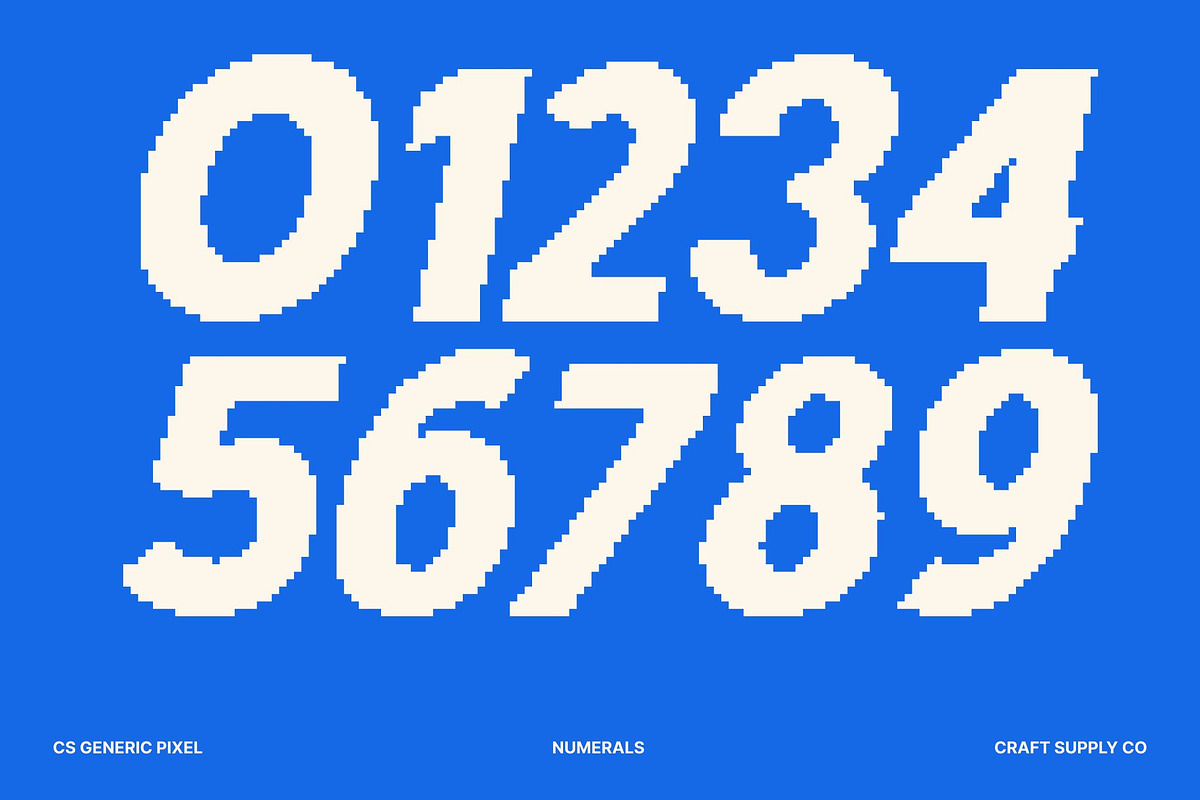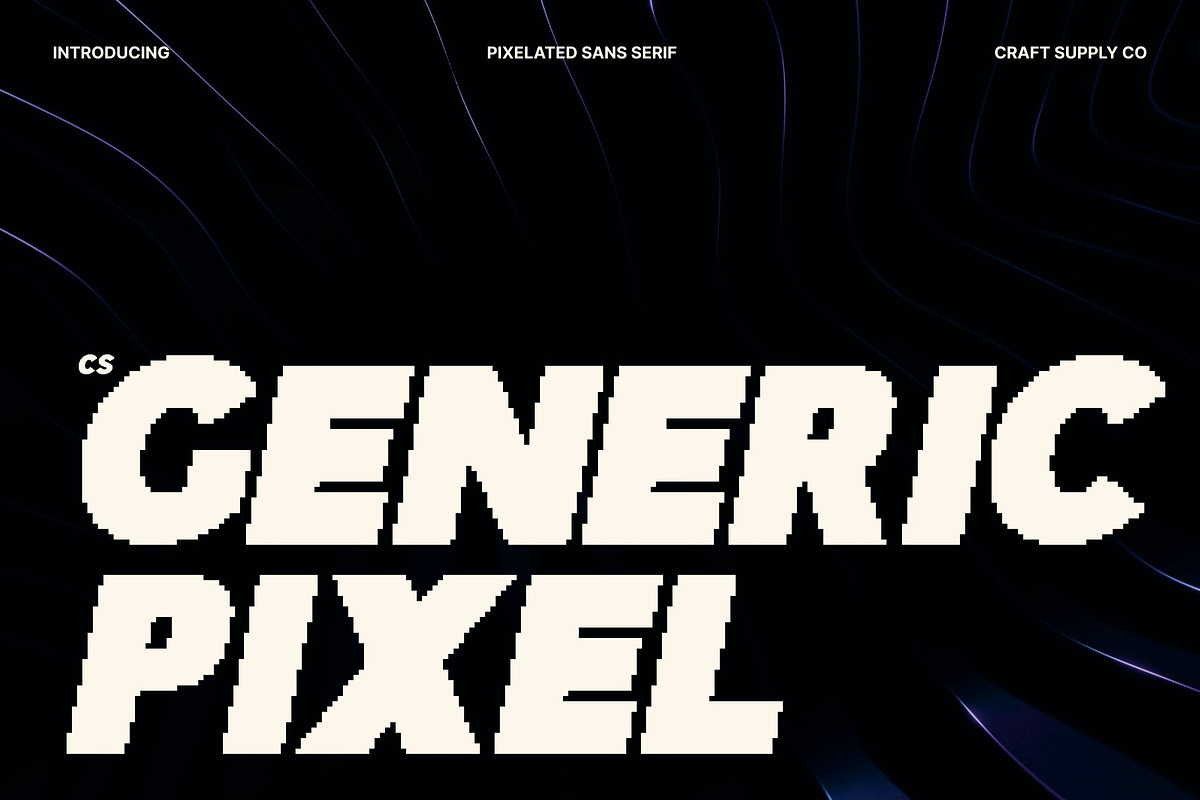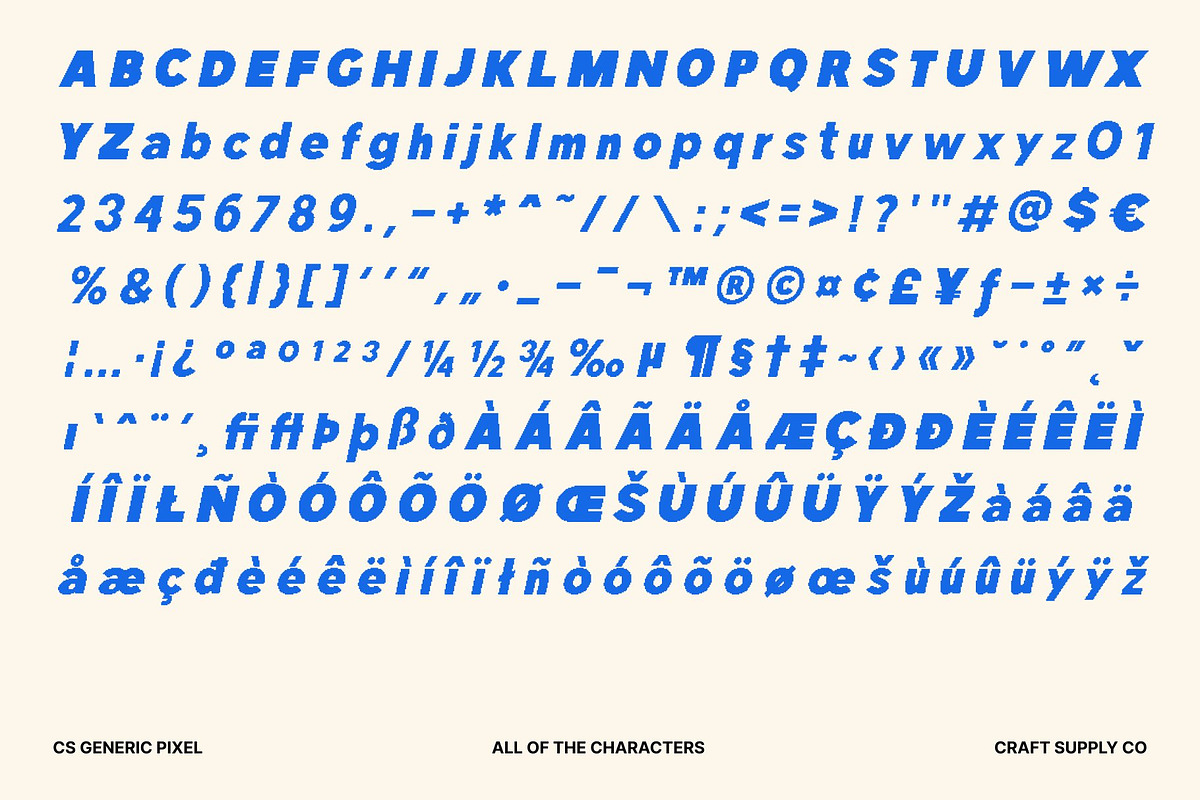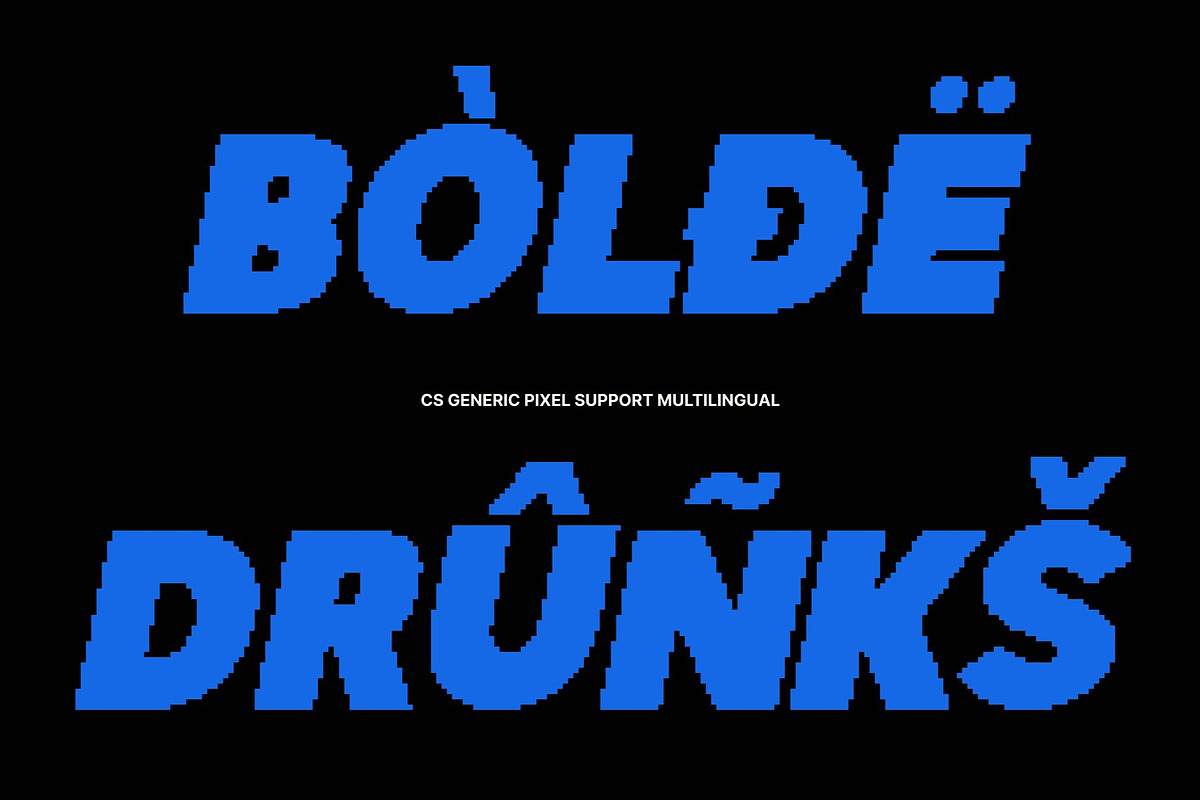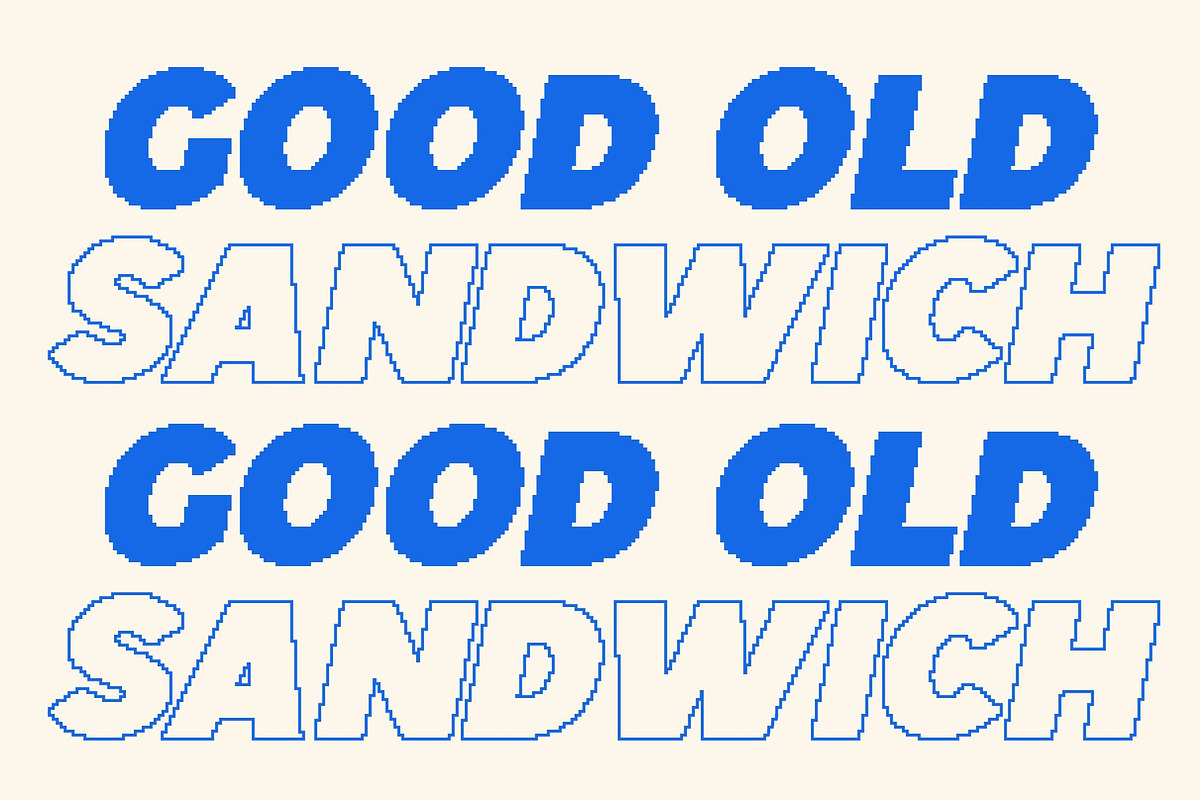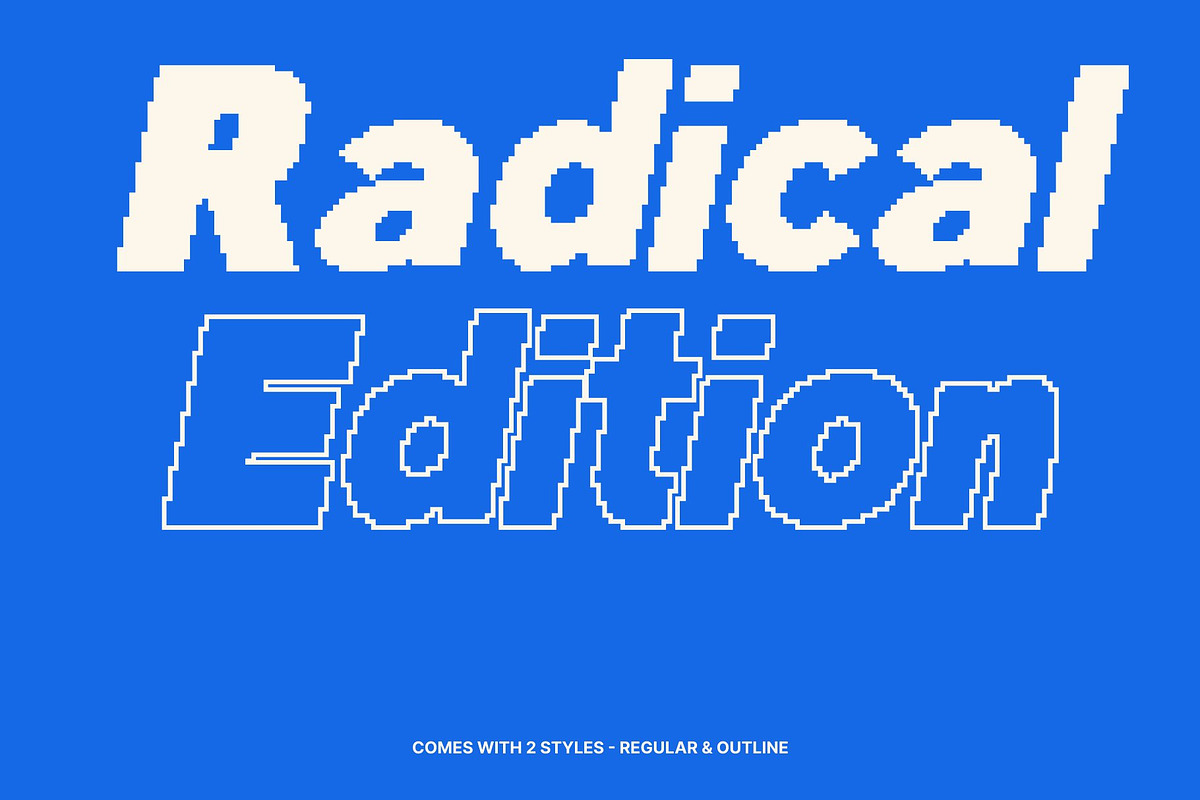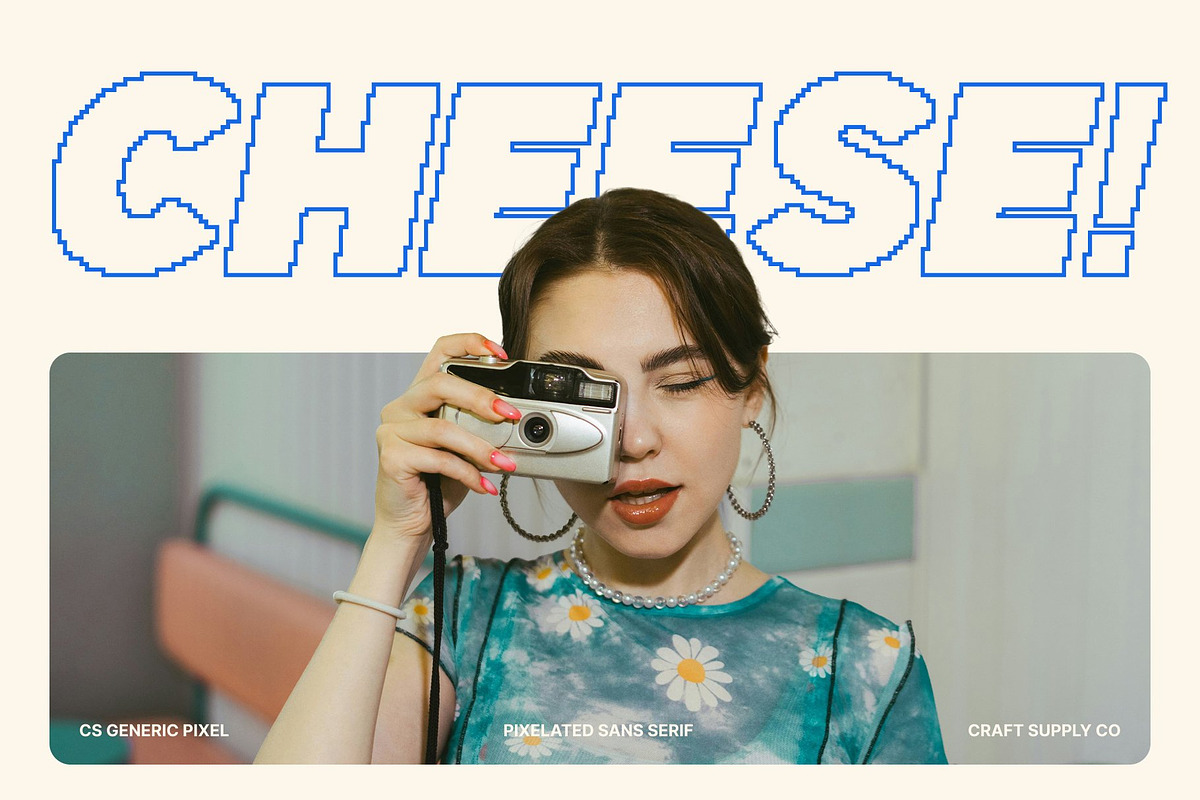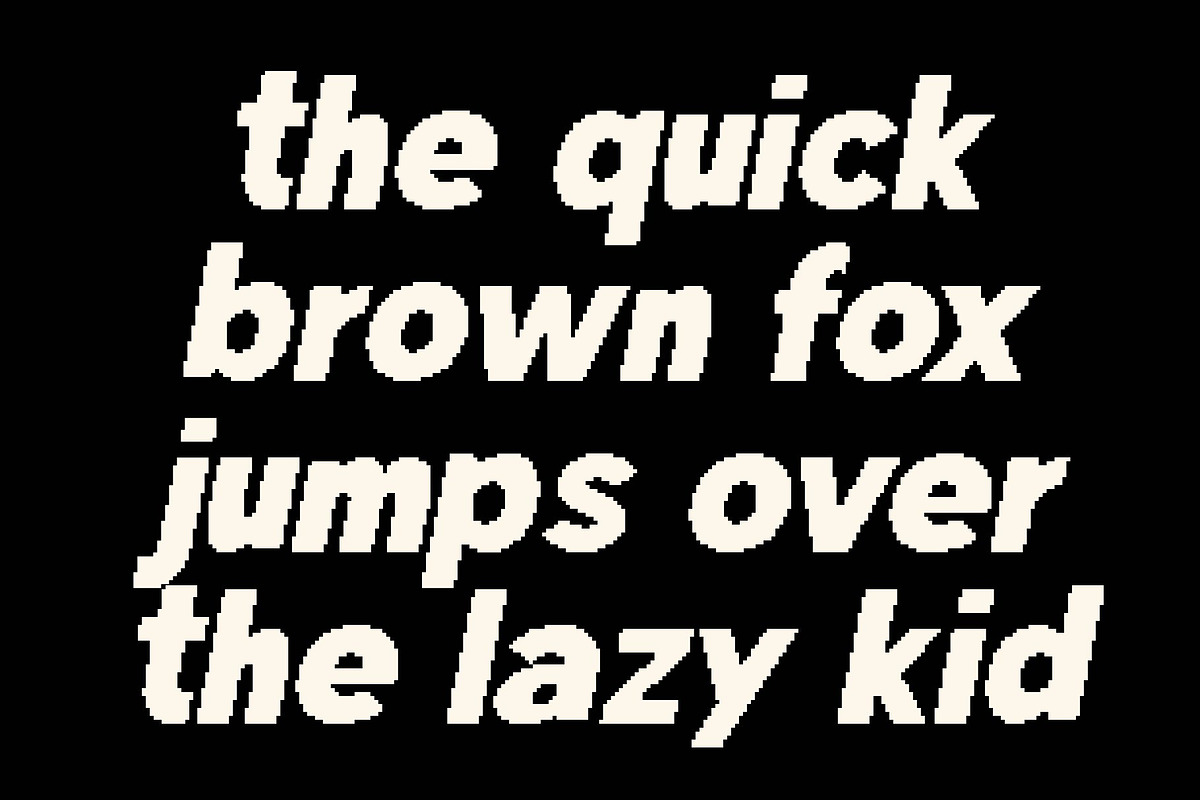
CS Generic Pixel
CS Generic Pixel – Bold Sans Serif with Digital Precision
Bold Contemporary Design with Pixel Attitude This is a bold sans serif display font designed to deliver strong modern impact through a clean pixel-based structure. Its solid geometry and confident construction create a powerful visual presence that feels sharp, modern, and digitally driven. Each letter is built to stand out with clarity and authority, making it perfect for eye-catching compositions.
High-Impact Headlines with Pixel Strength Designed to dominate headlines and large-scale visuals, this font’s bold weight and structured pixel forms ensure maximum readability and impact. Whether used in banners, posters, or digital displays, this font maintains a commanding presence that feels energetic, modern, and unmistakably bold.
Distinctive Branding for the Digital Era This font brings a strong, contemporary voice to branding projects. Its clean lines and expressive pixel geometry make logos, packaging, and brand visuals feel confident and future-ready. The font communicates strength and professionalism while embracing a modern digital aesthetic inspired by technology and retro screen culture.
Versatile Display Font for Modern Media From digital layouts and social media graphics to print design and signage, This font adapts effortlessly across creative platforms. Its balance of simplicity, readability, and pixel-driven impact makes it a reliable choice for designers who want bold visuals with a modern, tech-inspired edge.